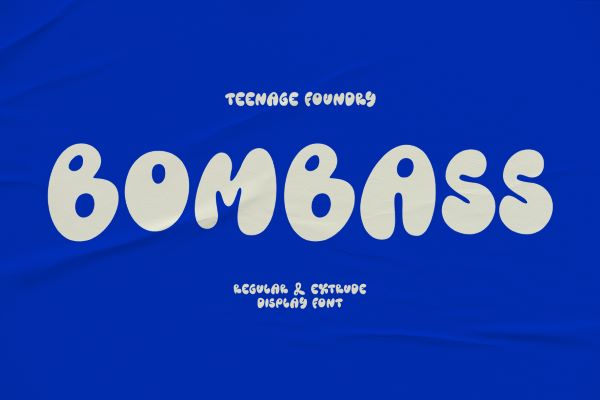
TF Bombass Font
TF Bombass by Teenage Foundry is a free groovy font that reaches straight back to the psychedelic energy of 1960s and 70s design — bold, rounded, unashamedly retro, and loaded with the kind of loose, funky personality that makes it immediately unmistakable. Available in both Regular and Extrude variants, it offers two distinct ways to deploy its visual impact: the Regular for clean headline statements, the Extrude for dimensional, poster-ready boldness. Full character coverage includes uppercase, lowercase, numerals, punctuation, and multilingual support across OTF, TTF, and WOFF formats. Free for personal use, with a commercial license available via the Teenage Foundry website.